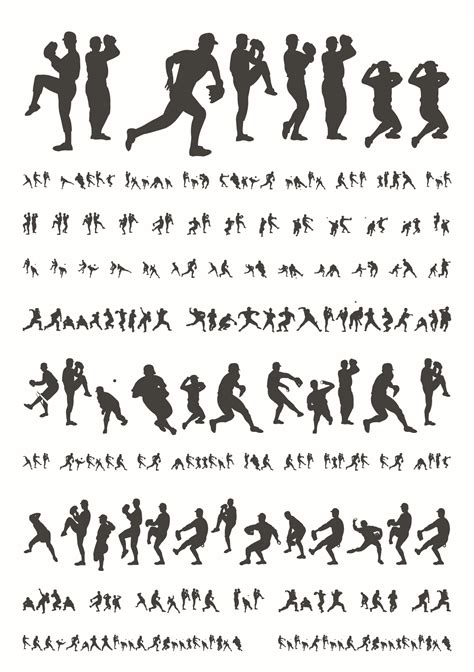
Create Awesome PSEI Baseball Style Fonts
Hey guys, are you ready to dive into the world of PSEI Baseball style fonts ? If you’re a baseball enthusiast, a graphic designer, or just someone who loves cool fonts, you’re in for a treat! This article is your ultimate guide to generating those awesome baseball-themed fonts that you see everywhere. We’ll explore what makes these fonts so special, how you can create your own, and where you can find some amazing resources to get started. Let’s get this show on the road! First of all, What exactly are PSEI Baseball Style Fonts? These fonts are inspired by the classic look of baseball jerseys, scoreboards, and team logos. They typically feature a bold, slightly rounded design, often with a shadow or outline effect to give them that classic, retro vibe. Think of the iconic lettering you see on your favorite team’s jersey – that’s the kind of style we’re talking about! These fonts are incredibly versatile and can be used for a variety of projects, from designing sports team logos and merchandise to creating eye-catching social media posts and event posters. The PSEI Baseball style fonts are all about capturing the energy and spirit of the game, making your designs pop and resonate with fans. The popularity of these fonts has skyrocketed because they evoke a sense of nostalgia and excitement associated with baseball. Whether you’re designing for a professional team, a local league, or just for fun, these fonts can instantly add a touch of authenticity and visual appeal to your work. And the best part? Creating and using these fonts is easier than you might think! Ready to level up your design game? Let’s get into the nitty-gritty of generating these awesome fonts, shall we?
Why Use PSEI Baseball Style Fonts?
Alright, let’s talk about why you should even bother with PSEI Baseball style fonts . Why are they so darn popular? Why do designers and baseball fans alike go crazy for them? There are several key reasons why these fonts are a must-have in your design arsenal. First and foremost, they offer instant recognition. When people see a baseball-style font, they immediately associate it with the sport. It’s a visual cue that instantly communicates your message, whether it’s promoting a game, selling merchandise, or celebrating a team’s victory. This instant connection is invaluable in capturing attention and creating a strong brand identity. Then, there’s the aesthetic appeal. These fonts are visually striking! The bold, often rounded letterforms are easy to read and command attention. The shadow and outline effects add depth and a touch of nostalgia, making your designs look professional and engaging. They’re also incredibly versatile. You can use them in a variety of projects, from logos and jerseys to social media graphics and website headers. They fit seamlessly into any baseball-related context, but they can also be used creatively in other areas, such as creating a vintage or retro feel. Think about it: a well-chosen font can make or break a design. Baseball-style fonts have a unique ability to evoke a sense of energy and excitement, making your designs more memorable and impactful. Using a PSEI Baseball style font is like adding a home run to your design – it’s a guaranteed way to score big with your audience! And, the best part? They’re super fun to work with! The fonts themselves often have a playful, dynamic feel, inspiring creativity and experimentation. So, whether you’re a seasoned designer or a newbie, these fonts are a fantastic way to express your creativity and show your love for the game.
Creating Your Own Baseball Fonts
Okay, guys, let’s get down to the fun part: creating your own PSEI Baseball style fonts . While you might not be able to design a font from scratch without some serious skills (and specialized software), there are plenty of user-friendly tools and techniques to help you customize and generate fonts that look fantastic. One of the most common methods is to use font generators. These online tools allow you to input your text and then select from a range of styles and effects to create a custom look. Many generators offer options like shadow effects, outline styles, and color customization, giving you a lot of control over the final product. To get started, all you need is a web browser and a little bit of creativity! First, research some existing baseball fonts to get a feel for the style. Look at jerseys, logos, and scoreboard designs to identify the characteristics you like. Then, choose a font generator that suits your needs. There are many free and paid options available, so it’s worth exploring different tools to see which ones offer the features and customization options you’re looking for. Once you’ve selected a generator, input your text. This could be your team name, a slogan, or any other text you want to use. Then, experiment with different styles, colors, and effects until you achieve the desired look. Don’t be afraid to try different combinations! The beauty of these tools is that you can quickly change and preview your design. When you’re satisfied with your font, save it as an image or vector file. Most generators allow you to download your custom font in various formats, making it easy to use in your design projects. If you’re feeling ambitious, you can even take your font design a step further by using vector graphics software like Adobe Illustrator or Inkscape. With these tools, you can manually adjust the shapes and details of the font, giving you even more control over the final outcome. The possibilities are endless! From simple text customization to creating intricate designs, you can create unique and eye-catching fonts. Remember, the key is to have fun and experiment. With a little bit of creativity and the right tools, you can create a unique PSEI Baseball style font that truly captures the spirit of the game!
Alright, let’s talk tools! Where can you actually go to create these awesome PSEI Baseball style fonts ? Here are some of the most popular and user-friendly font generators that will get you started on your design journey: First up, we have FontGet. FontGet is a web-based font generator that offers a wide range of customization options, including shadow effects, outline styles, and color adjustments. It’s user-friendly, and perfect for beginners. Another great option is Font Meme. It has a vast library of existing fonts and a simple interface. It allows you to generate text with pre-designed baseball fonts, making it super easy to create eye-catching designs quickly. If you’re looking for more advanced features, you can also check out online tools like Canva. While not specifically a font generator, Canva offers an extensive selection of fonts and design elements, allowing you to create customized text with various effects. It’s a great option for those who want more control over their designs and want to add additional elements like backgrounds and graphics. For those who want more control over their designs and want to add additional elements like backgrounds and graphics, online resources like Placeit are great. Placeit offers a library of fonts and design templates, allowing you to generate text with various effects. It’s also suitable if you want to create mockups of your designs. Remember, the best tool for you will depend on your specific needs and design goals. Explore various options, experiment with different features, and find the one that resonates with your style. These tools will enable you to create unique and eye-catching baseball-style fonts without any professional design experience. With a bit of creativity, you can achieve amazing results and create designs that stand out.
Tips for Designing Great Baseball Fonts
Now that you know how to generate these amazing PSEI Baseball style fonts , let’s go over some tips to make sure your designs are top-notch. First, consistency is key! When you’re designing a baseball-themed font, make sure it aligns with your overall design concept. Does it match the style and color scheme of your project? Ensuring that your font complements your other design elements will create a cohesive and professional look. Secondly, experiment with different effects. Shadow, outline, and 3D effects can add depth and visual appeal to your font. Don’t be afraid to experiment with different styles and see what looks best. Sometimes, a subtle effect can make a big difference! Then, consider the context. Where will your font be used? Will it be displayed on a jersey, a poster, or a website? Consider the size and readability of the font to ensure it’s easy to read in its intended setting. Next, balance is important. While baseball fonts tend to be bold and eye-catching, avoid going overboard with effects and embellishments. A clean and balanced design is often more effective than an overly complicated one. Don’t forget to test your design. Before finalizing your font, test it on different backgrounds and with different colors. This will help you identify any issues with readability or visual appeal. Review the design on different devices to make sure it looks great on all platforms. Lastly, keep it simple. Sometimes, less is more. While it’s tempting to add a lot of effects and details, a simple, well-executed font can often make a bigger impact. Focus on creating a clean and legible design that captures the essence of the baseball style. By following these tips, you’ll be well on your way to creating stunning baseball-style fonts that wow your audience. So, grab your design tools, let your creativity flow, and start creating! You’re gonna knock it out of the park!
Advanced Customization Techniques
Alright, you’ve mastered the basics of generating PSEI Baseball style fonts . Now, let’s take it a step further and explore some advanced customization techniques to really make your fonts pop. If you’re ready to level up your design game, this is where you should focus! First off, delve into vector graphics software. Programs like Adobe Illustrator or Inkscape offer unparalleled control over your font designs. You can import your generated font into these programs and then manually adjust the shapes, curves, and details of each letter. This gives you the flexibility to create truly unique and customized fonts. Take it up a notch by creating custom ligatures. Ligatures are special characters that combine two or more letters into a single glyph. They can add a unique visual flair to your font and improve readability. Experiment with different ligatures to see how they affect the overall look and feel of your font. Then, explore color gradients and textures. Instead of using solid colors, try adding color gradients or textures to your font. This can add depth, visual interest, and a touch of realism to your design. Gradients can create subtle highlights and shadows, while textures can give your font a more tactile feel. Another awesome idea, is to experiment with different effects. Besides shadow and outline effects, consider adding other effects like bevel and emboss or 3D effects to your font. These effects can add a touch of sophistication and style. Just make sure to use them sparingly, as too many effects can make your font look cluttered and unreadable. You can also explore font families. Font families are a collection of fonts that share a common design style. By combining different font weights, styles, and widths, you can create a cohesive and versatile design system. This can be especially useful if you’re designing a logo or branding system. Finally, learn about kerning and tracking. Kerning refers to adjusting the space between individual letters, while tracking refers to adjusting the space between all letters in a word or phrase. Mastering these techniques will help you fine-tune the spacing of your font and create a more visually appealing design. By incorporating these advanced techniques, you can take your PSEI Baseball style fonts to the next level and create designs that truly stand out. Remember, the key is to experiment, have fun, and don’t be afraid to push the boundaries of your creativity. You’re now on your way to designing fonts that will make the pros jealous!
Using Your Fonts in Different Projects
Okay, so you’ve created these awesome PSEI Baseball style fonts – now what? How do you actually use them in your projects? Let’s dive into some practical applications and tips to make the most of your fonts. First, start with logos and branding. Baseball-style fonts are perfect for creating team logos, branding materials, and merchandise. You can use your custom font to design team names, slogans, and other key branding elements. This will create a consistent and memorable visual identity. Then, consider jersey design. These fonts are ideal for designing sports jerseys. You can use them to display player names, numbers, and team logos. Experiment with different colors, layouts, and effects to create unique and eye-catching jerseys. Also, think about creating posters and flyers. Promote your team, event, or product with eye-catching posters and flyers. Use your baseball-style font for headlines, titles, and other important text elements. This will instantly grab attention and communicate your message effectively. Of course, social media is key! Use your font for social media graphics and posts. Create visually appealing content for your social media channels by incorporating your custom fonts into images, videos, and other graphics. This can help increase engagement and build brand awareness. Also, you can create website headers and banners. Make your website stand out with custom headers and banners. Use your baseball-style font to create a unique and memorable online presence. This will help your website look professional and aligned with your brand. Another excellent use is for merchandise design. If you’re selling merchandise, such as t-shirts, hats, or other items, use your font to create custom designs. This can help boost sales and create a loyal customer base. Finally, never forget event promotions. Promote your baseball games and events with engaging promotional materials. Use your font to create eye-catching posters, banners, and social media graphics. So, whether it’s for sports teams, marketing campaigns, or personal projects, you can incorporate your fonts for amazing designs that get you noticed. You can go far by being creative and thinking about how to get your audience’s attention.